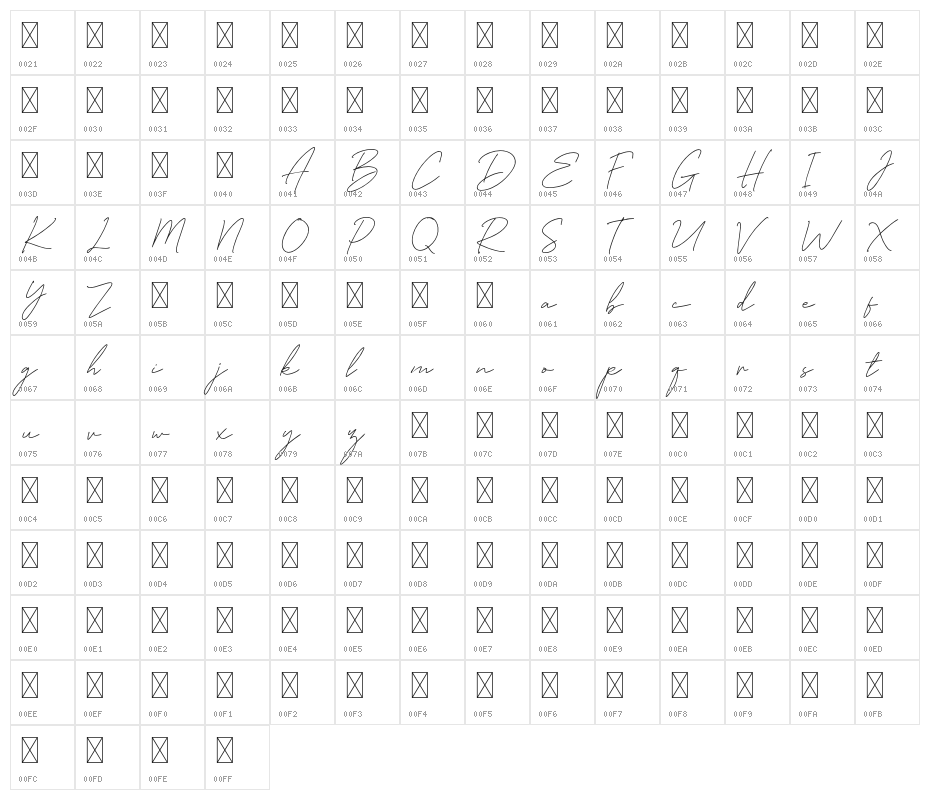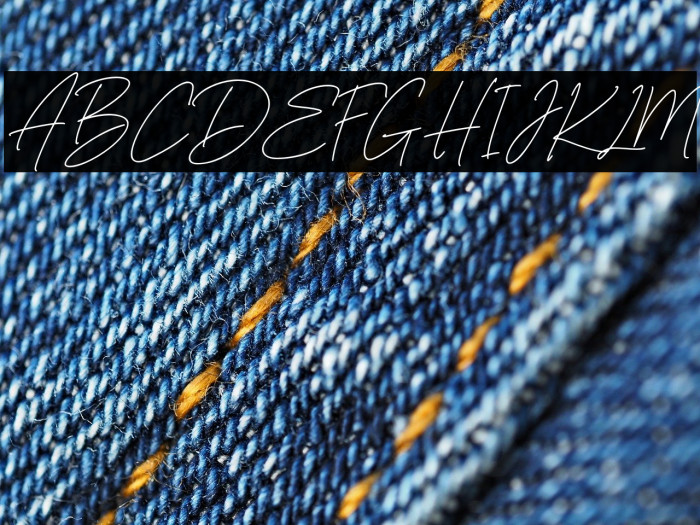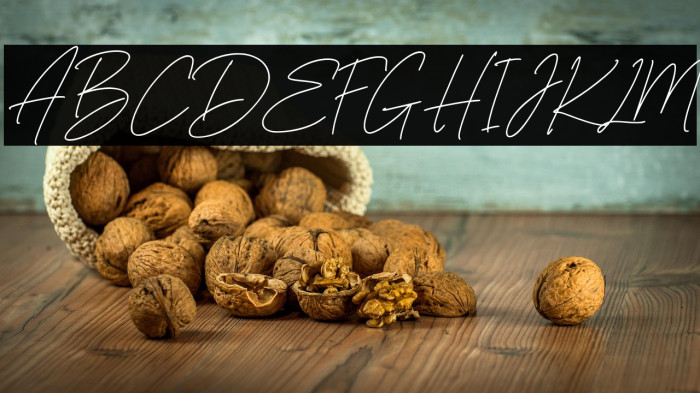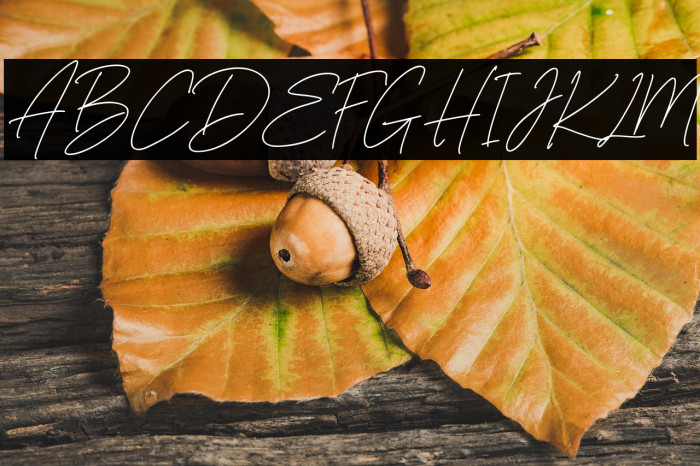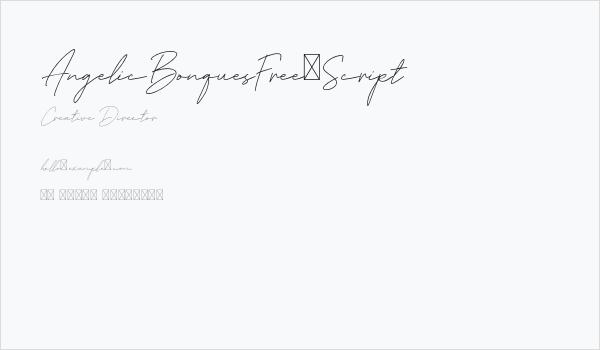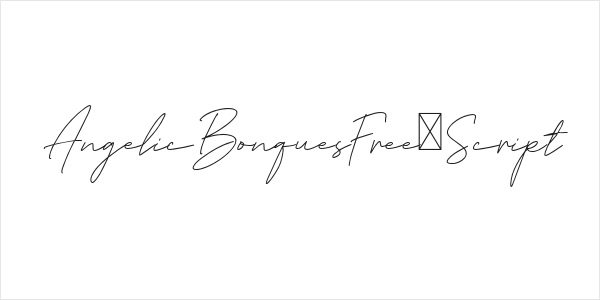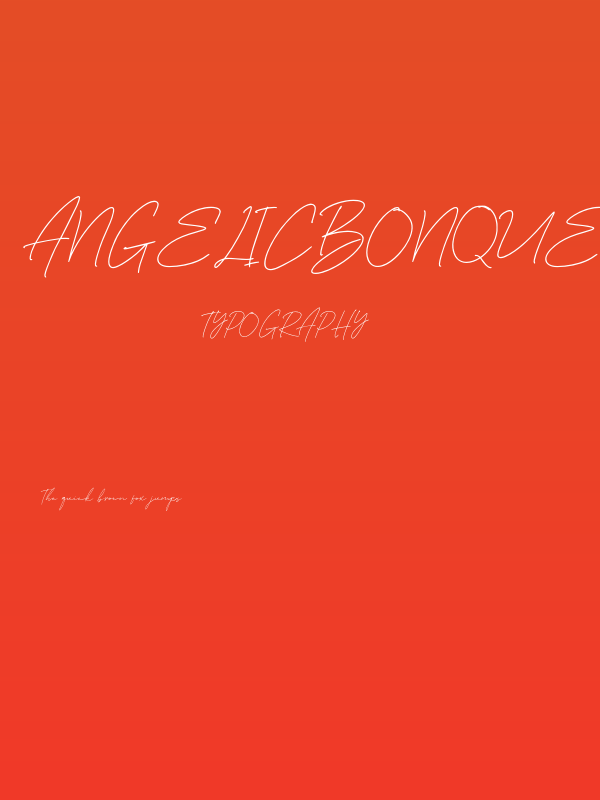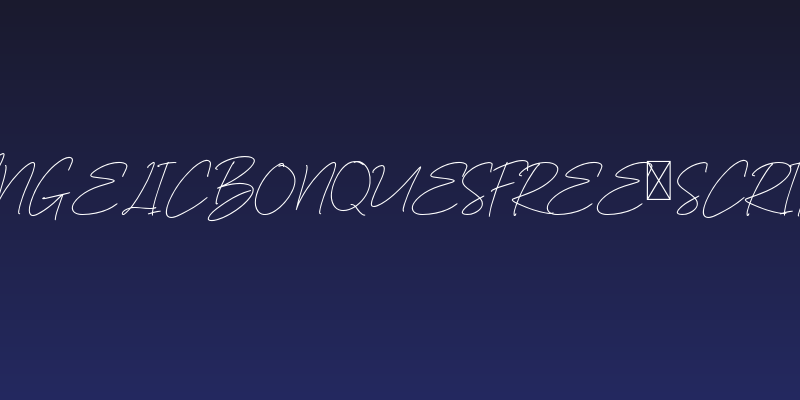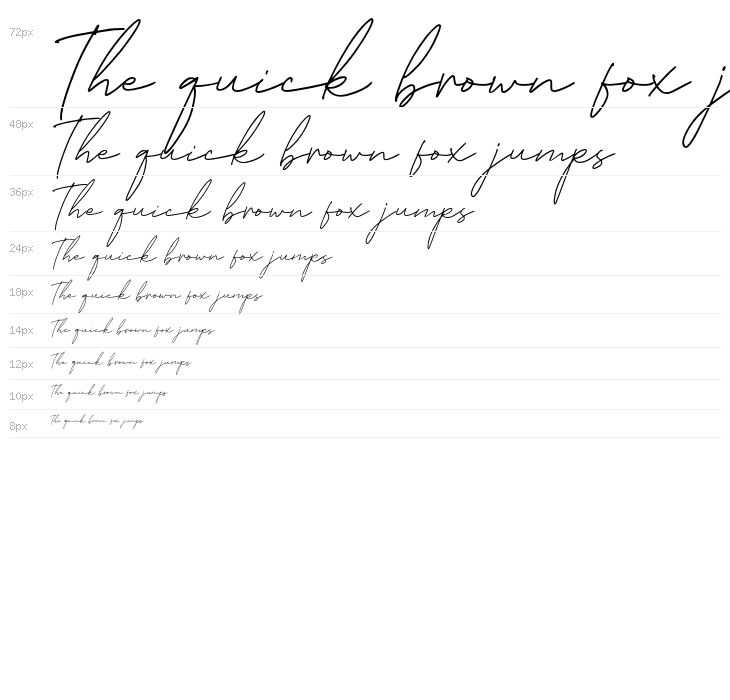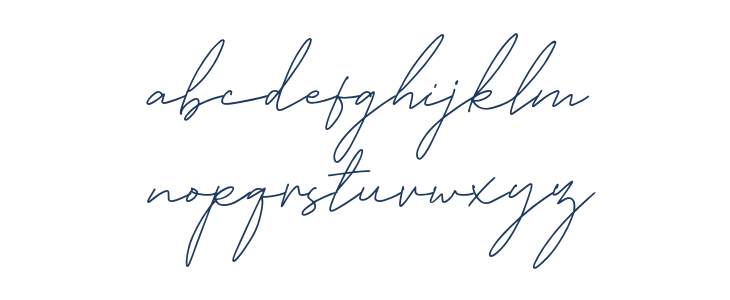
AngelicBonquesFree-Script Font
AngelicBonquesFree-Script Description
This elegant script font features a flowing, handwritten style with smooth, connected strokes that create a sense of fluidity and grace. The uppercase letters are slightly more angular, providing a dynamic contrast to the softer, more rounded lowercase characters. The overall appearance is sophisticated and artistic, making it ideal for projects that require a personal touch. The font's thin lines and consistent stroke width give it a delicate and refined look, perfect for invitations, greeting cards, or branding materials that aim to convey elegance and creativity.
| Overall Style | Elegant and artistic |
| Use Case | Invitations, Greeting cards, Branding |
| Proposed Projects | Ideal for wedding invitations, greeting cards, personal branding, and artistic projects. |